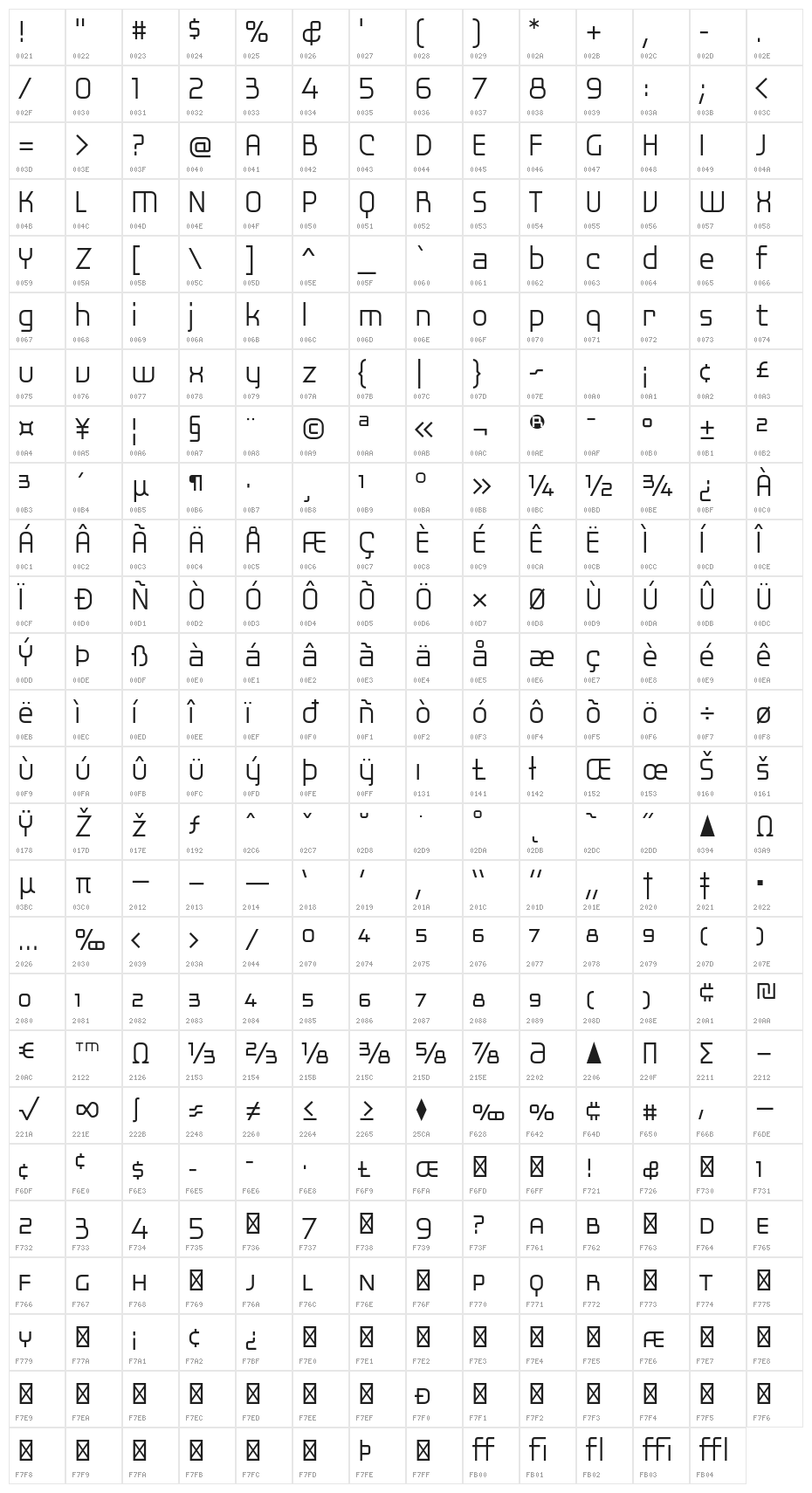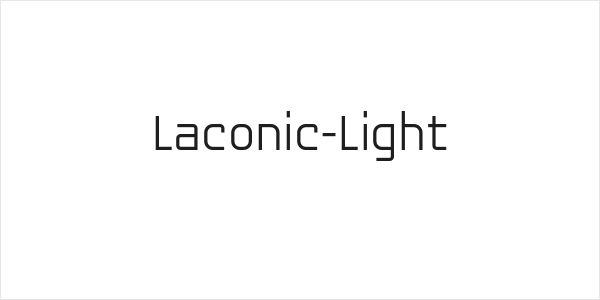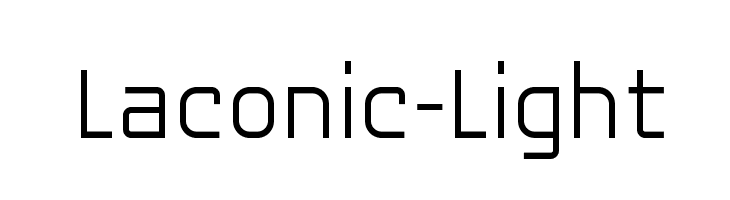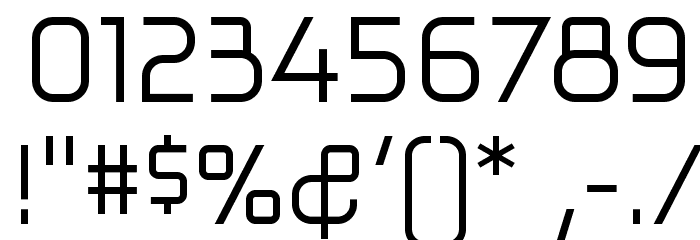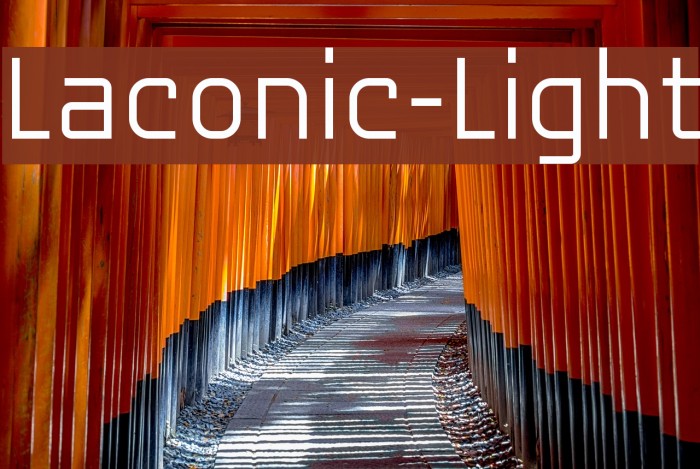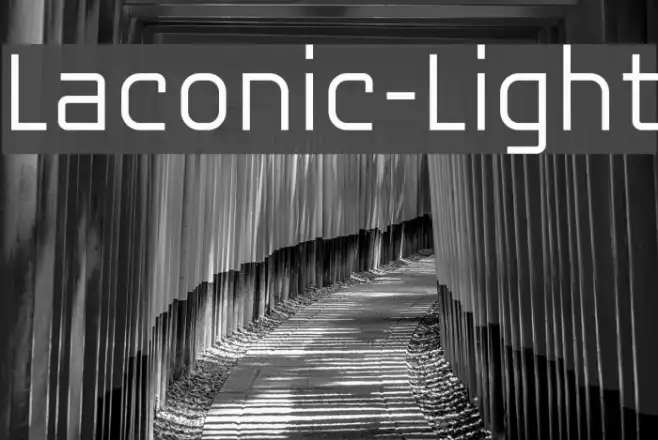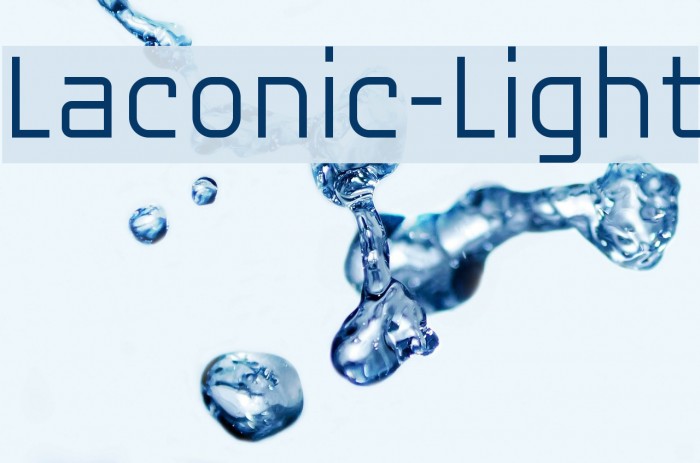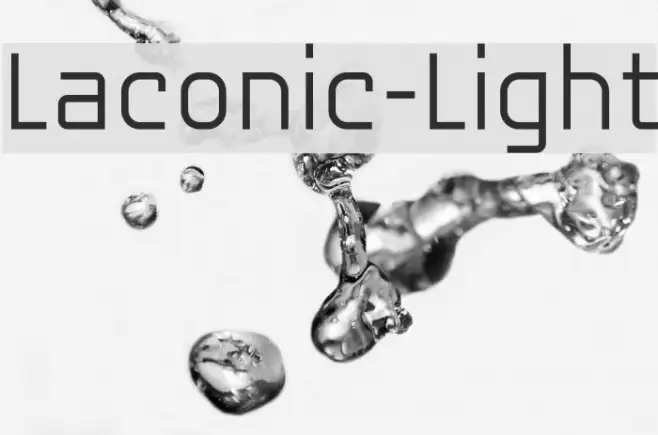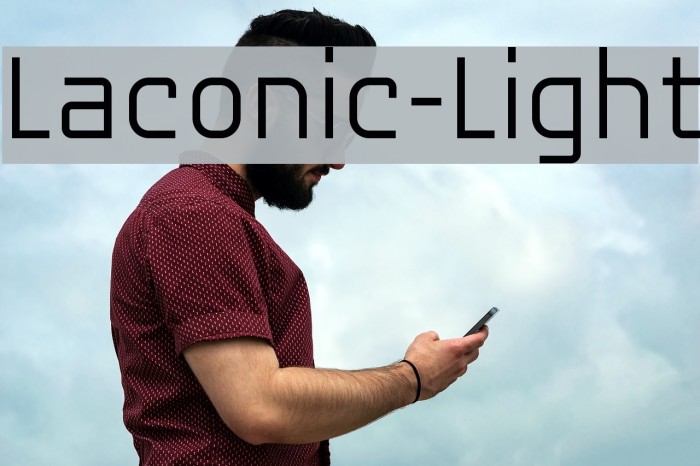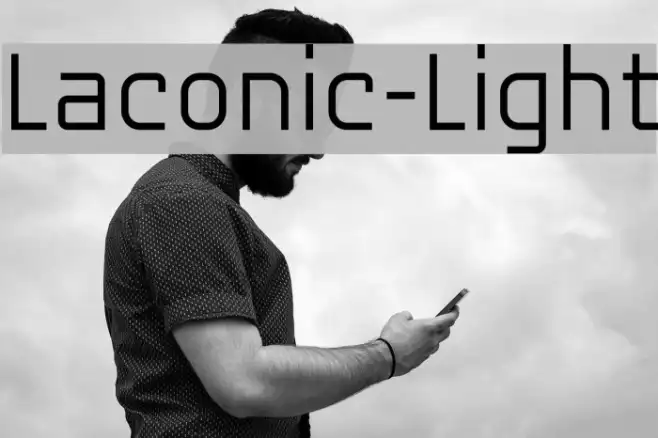
Laconic-Light Font
Laconic-Light Description
This font features a clean, geometric design with a modern aesthetic. The characters are constructed with uniform stroke widths, giving it a sleek and minimalistic appearance. The uppercase and lowercase letters maintain a consistent height, contributing to a harmonious and balanced look. The numerals are distinct and easily readable, while the special characters blend seamlessly with the overall style. The font's simplicity and clarity make it versatile for various design applications.
| Proposed Projects | Ideal for tech branding, modern websites, digital interfaces, and minimalist graphic design projects. |